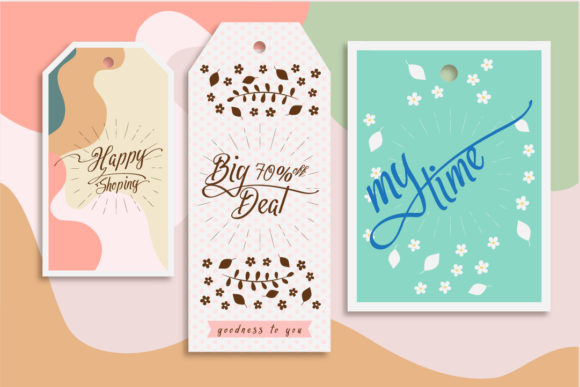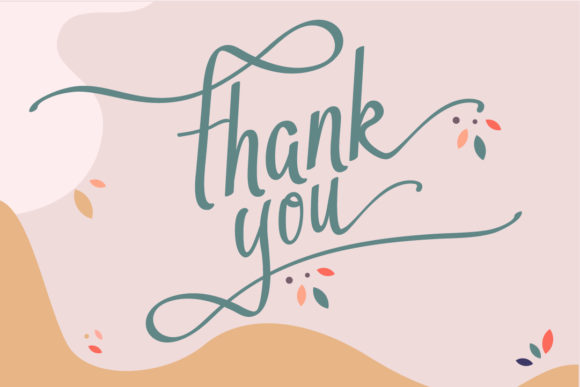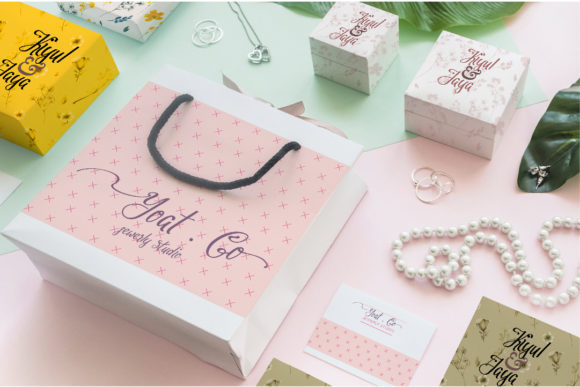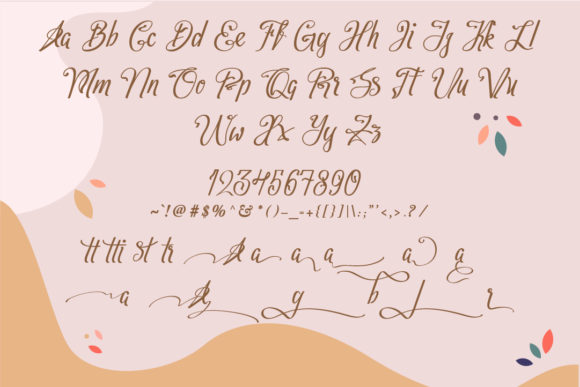
Introduction to Quritta Font
Quritta is a unique, cute and sweet calligraphy script that radiates authenticity.
Fall in love with its unique charm .
Key Features of Quritta Font